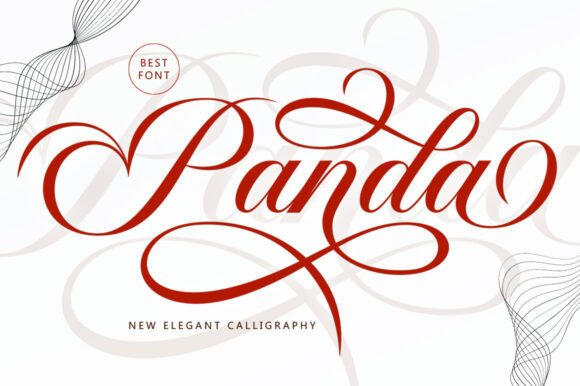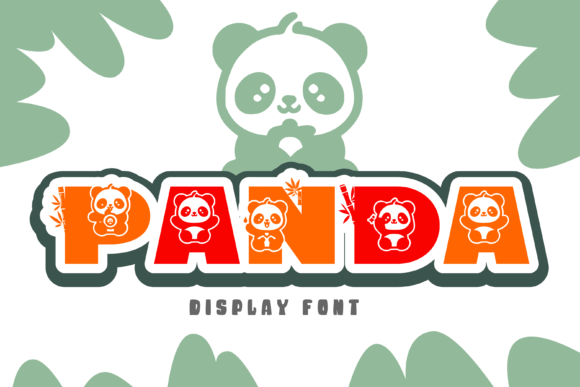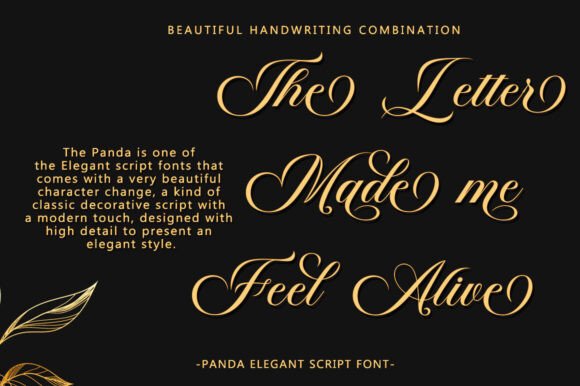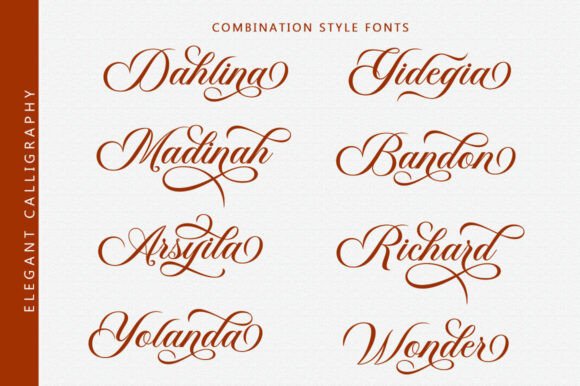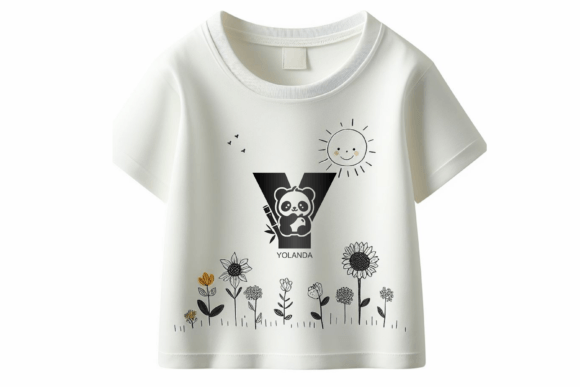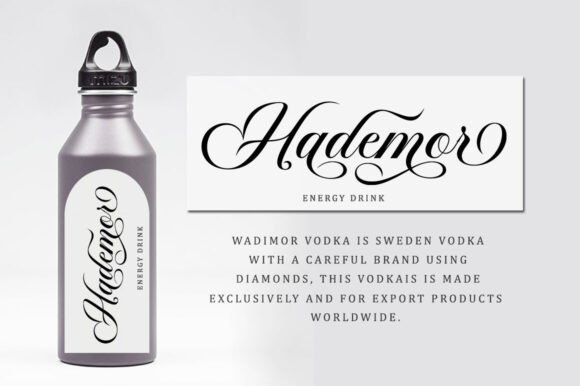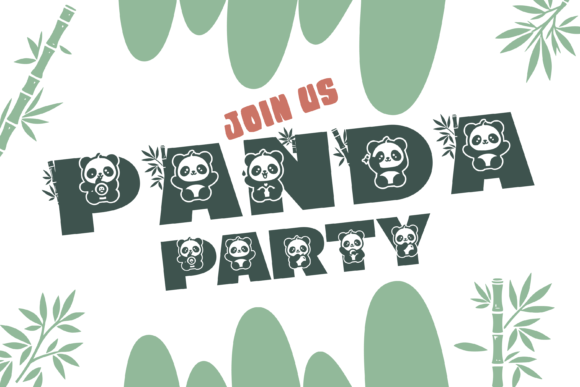
Panda Font: Elegant Calligraphy & Cute Display Font for Cricut Crafts
About the Panda Font
Step up your design game with Panda Font, a font that exudes confidence and style. Panda is an enchanting handwritten font. This versatile script font has a wide spectrum of applications ranging from greeting cards to headlines and is guaranteed to add a romantic feel to your next project.
Panda Font’s romantic feel makes it ideal for projects requiring a touch of elegance and whimsy, such as wedding invitations, branding for boutiques, or packaging for artisanal products. Its expressive nature shines in headlines, short quotes, and logos, adding a handcrafted quality. However, its script style is less suitable for body text or UI elements where readability is paramount; long paragraphs set in Panda would be difficult to read.
For optimal visual harmony, pair Panda with a clean sans-serif font like Open Sans for body copy, maintaining readability while preserving the script’s charm. Alternatively, a classic serif like Garamond can add a touch of sophistication and balance the handwritten feel. Avoid pairing it with overly geometric or bold fonts, which might clash with its delicate strokes.
Panda’s core personality is best described as romantic and playful, yet refined. It’s a versatile font, best used sparingly as an accent to draw attention and convey a sense of handcrafted charm and personality.